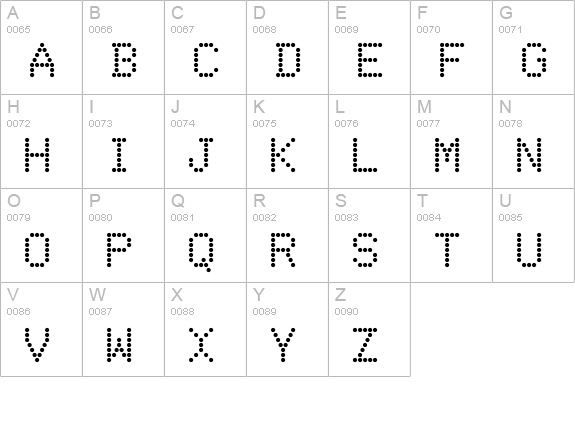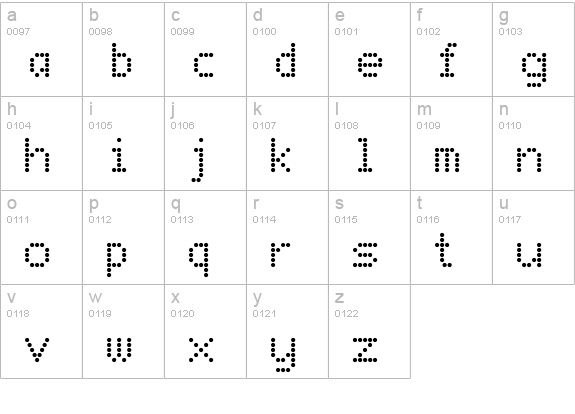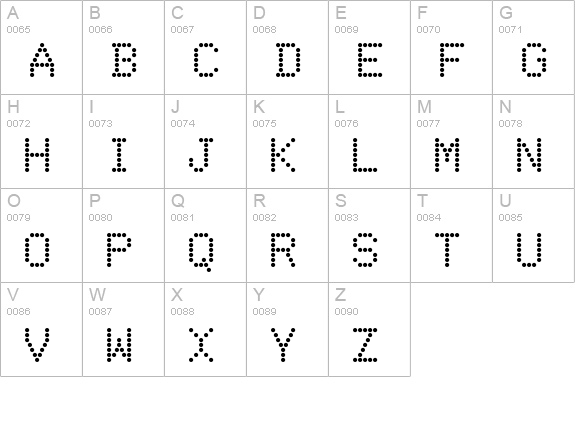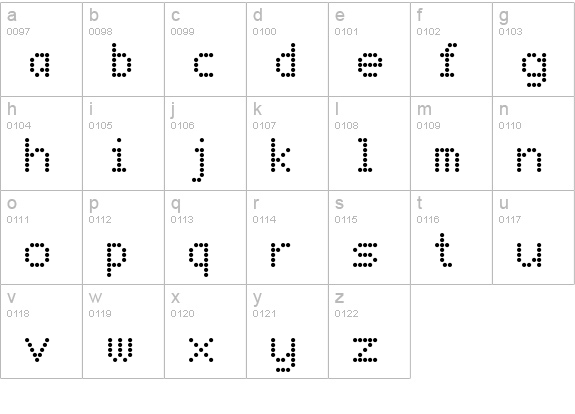
DotMatrix Regular is the standard, neutral variant in the DotMatrix typeface family \xE2\x80\x94 well suited to general body text, paragraphs, and standard typographic work.
DotMatrix Regular font is a classic and versatile typeface that brings a touch of nostalgia to any design project. With its distinctive dot matrix style, this font is perfect for adding a retro feel to posters, flyers, and digital artwork. The clean and crisp lines of DotMatrix Regular make it easy to read and suitable for a wide range of applications. Best of all, DotMatrix Regular font is available for free download at FontsMarket.com. Whether you're a designer looking to add a unique twist to your work or a hobbyist wanting to experiment with different fonts, DotMatrix Regular is a fantastic choice that won't cost you a thing. Download it today and start creating eye-catching designs with this timeless font.